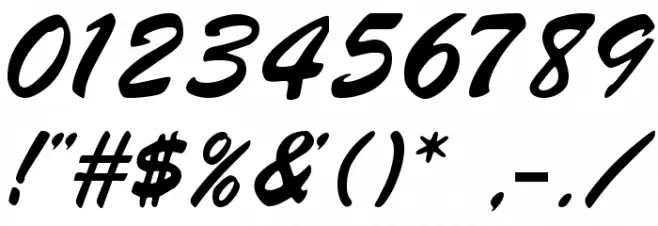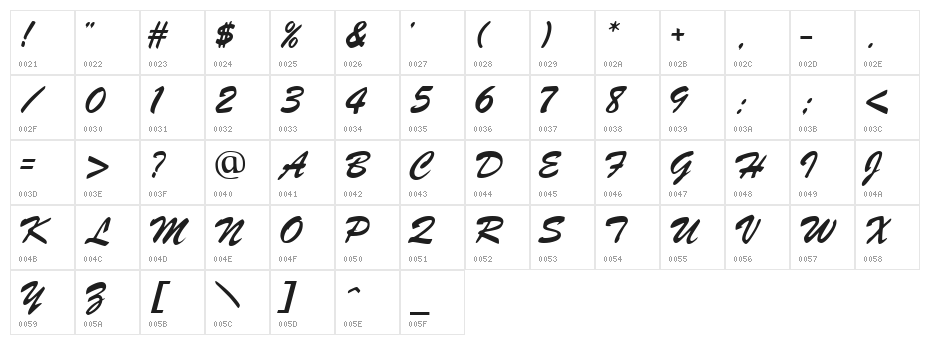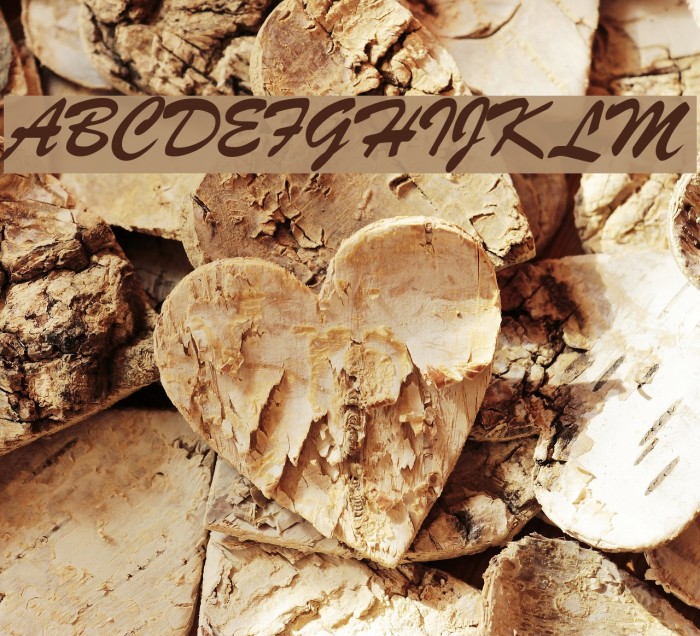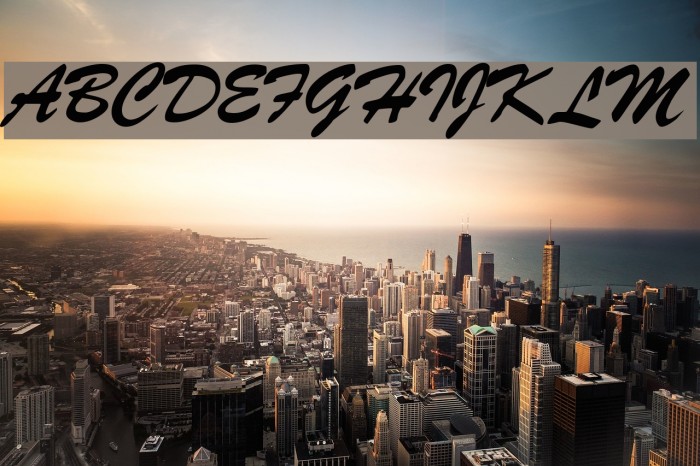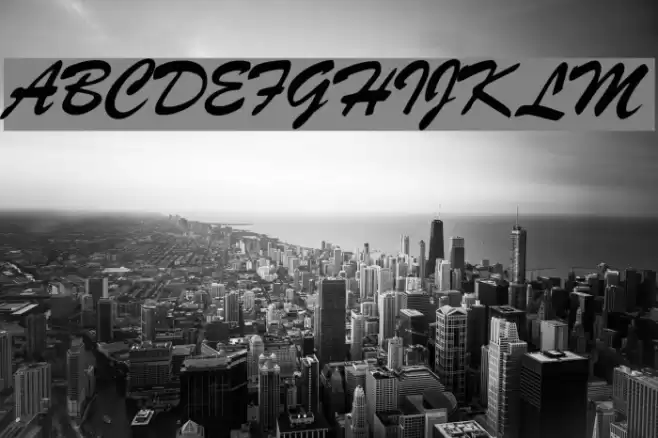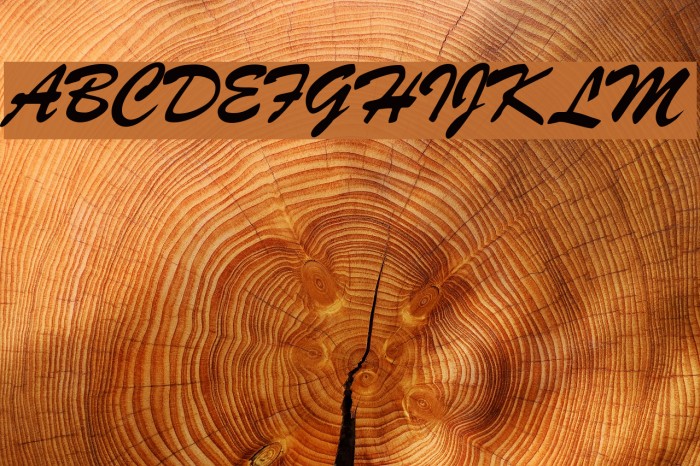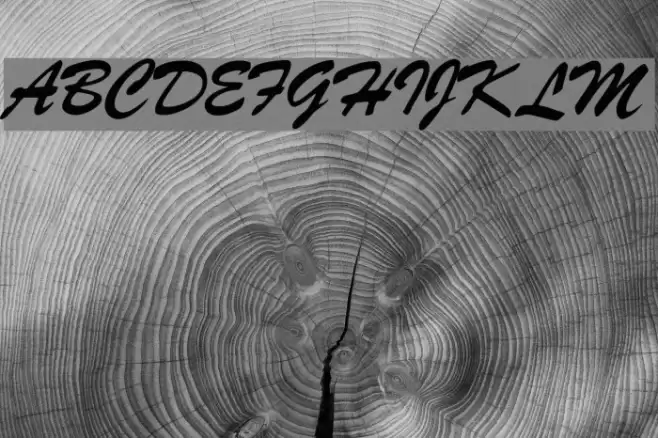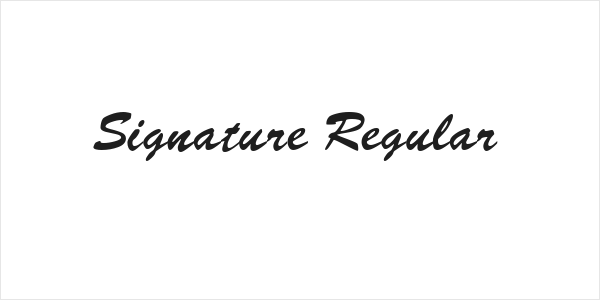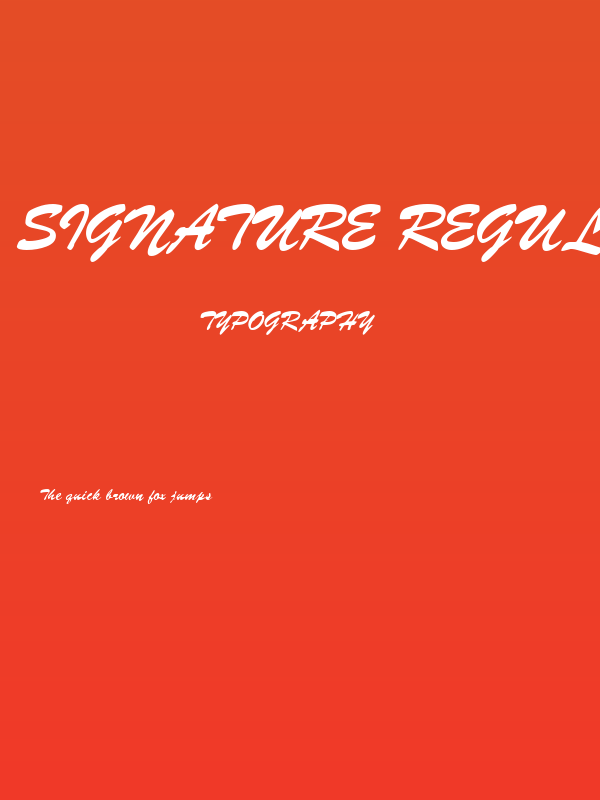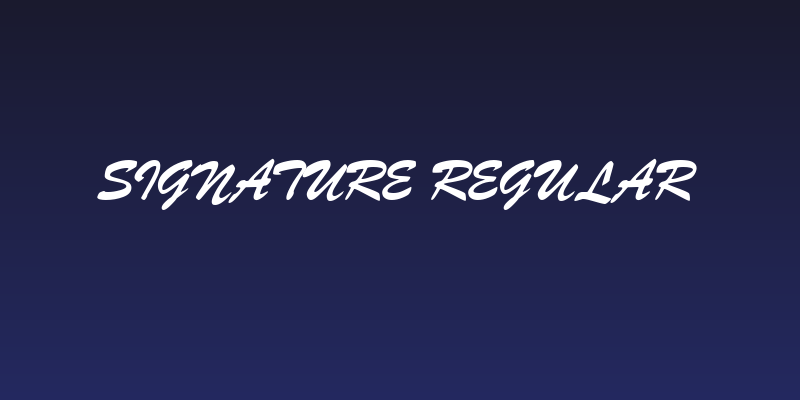
Signature Regular Font
Signature Regular Description
This font features a flowing, cursive style that mimics the fluidity of handwriting. The characters are elegantly connected, giving a sense of continuity and grace. The uppercase letters are bold and prominent, while the lowercase letters maintain a consistent rhythm and balance. The numerals are distinct and easily readable, complementing the overall aesthetic. Special characters are integrated seamlessly, maintaining the font's cohesive look. This script font exudes a sense of sophistication and personal touch, making it ideal for projects that require a handwritten appearance.